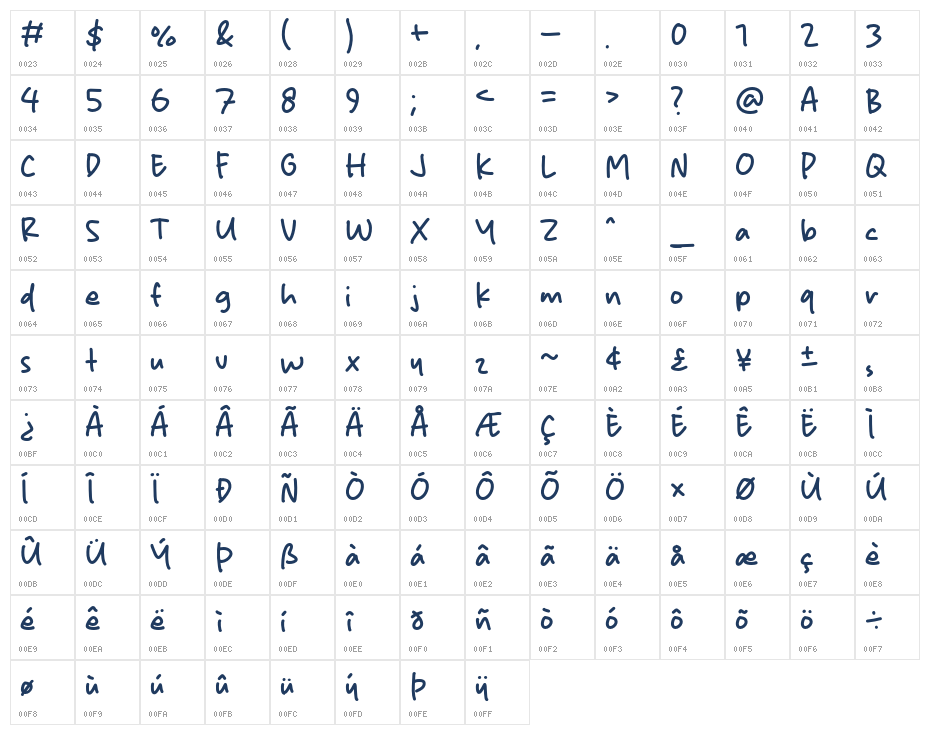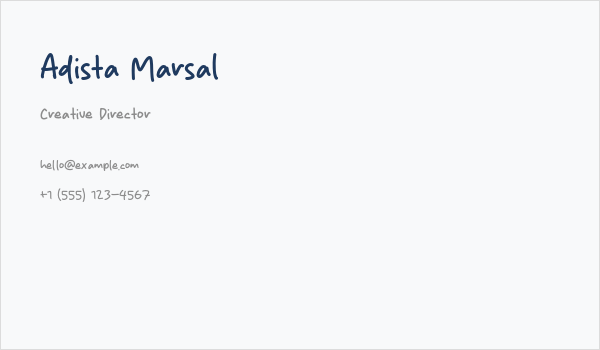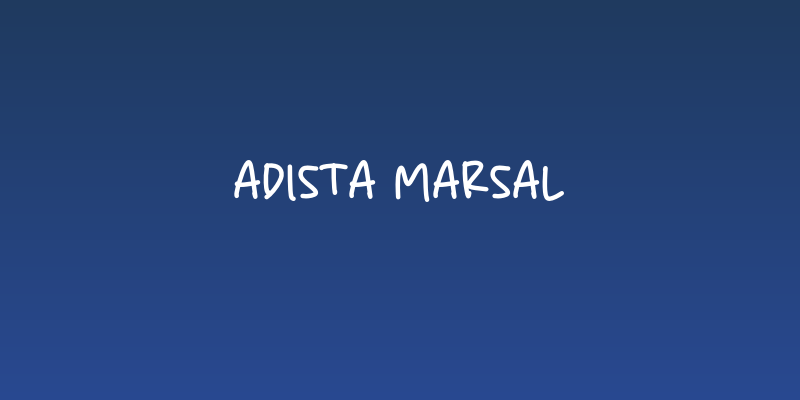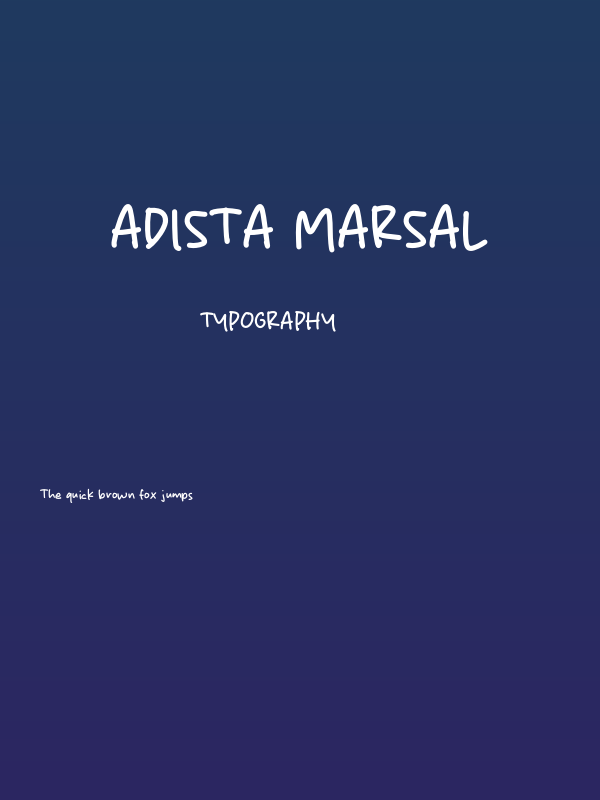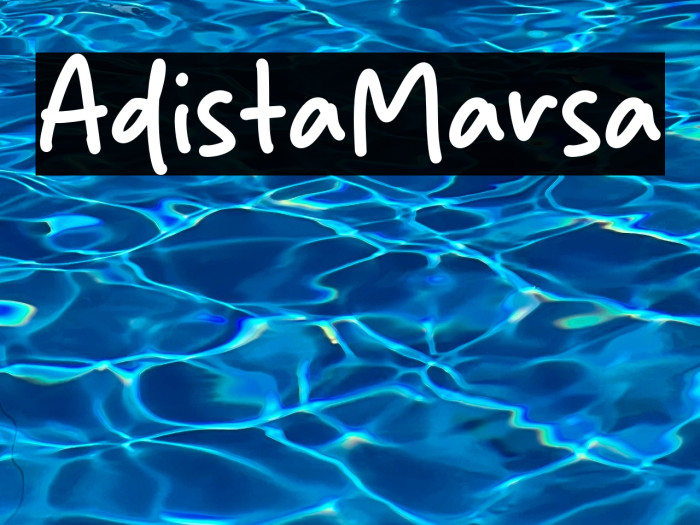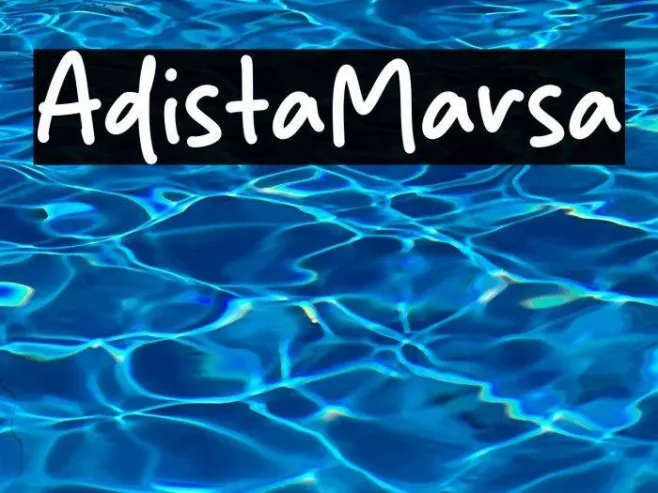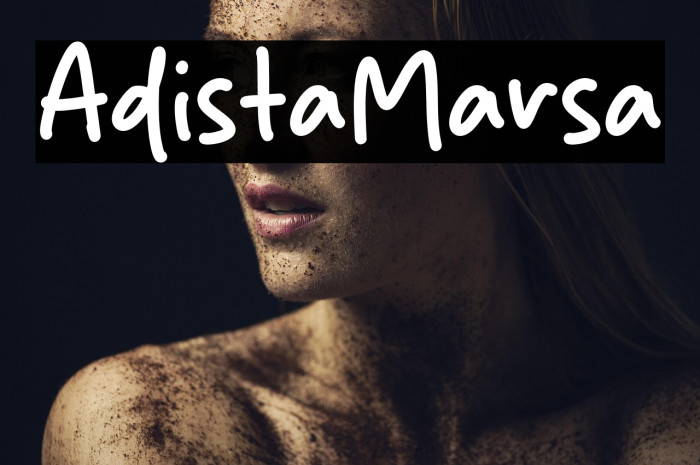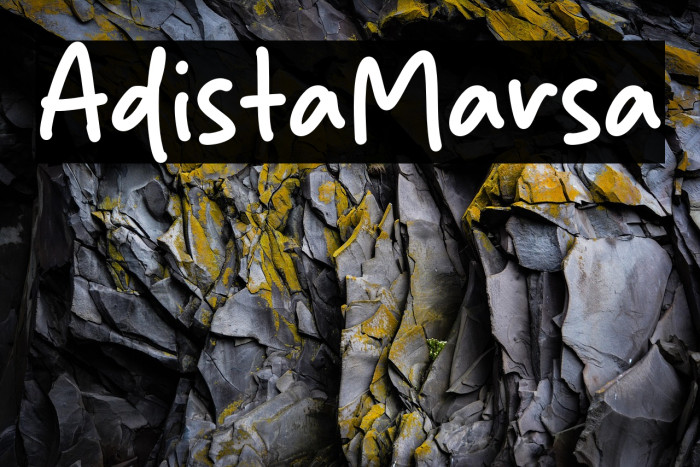
Adista Marsal Font
Adista Marsal Description
A casual, handwritten script font with a playful and friendly appearance, featuring rounded and slightly irregular characters.
Adista Marsal
| Overall Style | Casual, Friendly, Playful |